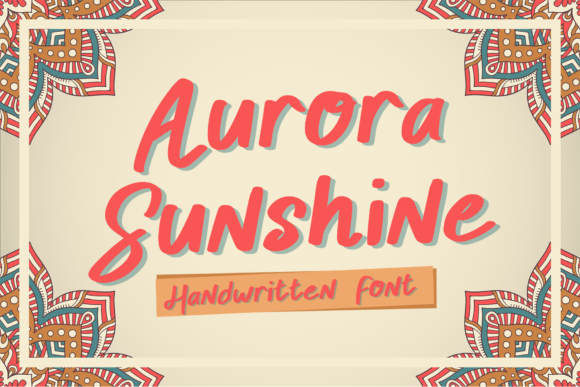
The Quest for the Perfect Font: Discovering Aurora Sunshine
I’ll never forget the time I was working on a project for a client who wanted a playful and modern vibe. I had spent hours browsing through font libraries, but nothing seemed quite right. That was until I stumbled upon Aurora Sunshine, a font that instantly caught my attention with its unique and carefree personality.
As a designer, I’ve learned that the right font can make or break a project. It’s not just about aesthetics; it’s about conveying the right tone and message to your audience. In this article, I’ll share my experience with Aurora Sunshine, a font that has quickly become one of my go-tos for projects that require a dash of playfulness and modernity.
A Personal Review of Aurora Sunshine
- ✨ Playful and relaxed vibe: Aurora Sunshine has a unique ability to convey a sense of fun and approachability, making it perfect for projects that require a lighthearted tone.
- ✅ Modern and fresh feel: The font’s clean lines and subtle curves give it a contemporary feel that’s hard to find in more traditional fonts.
- 💡 Highly versatile: Whether you’re working on a digital project or a print design, Aurora Sunshine adapts seamlessly to different mediums and contexts.
While Aurora Sunshine is an excellent font, it’s not without its quirks. For instance:
- 🤔 Limited use of uppercase letters: While the font’s uppercase letters are beautifully designed, they can be a bit limited in their use. However, this doesn’t detract from the font’s overall versatility.
- ⚠️ Occasional kerning issues: As with any font, there may be some kerning issues, especially when using certain character combinations. However, these can be easily adjusted in most design software.
The Backstory of Aurora Sunshine
Aurora Sunshine was designed by a team of typographers who wanted to create a font that captured the essence of a sunny day. Inspired by the beauty of nature, they crafted a font that’s both playful and modern, with a unique personality that’s hard to find in more traditional fonts.
| Font Name | Aurora Sunshine Font |
| Author | Phantom Creative Studio |
Q: What is Aurora Sunshine?
A: Aurora Sunshine is a playful, relaxed, and modern font designed for creative projects.
Q: What type of projects is Aurora Sunshine suitable for?
A: Aurora Sunshine is suitable for a wide range of projects, including digital designs, print materials, and branding.
Q: Is Aurora Sunshine easy to read?
A: Yes, Aurora Sunshine is designed to be highly legible, making it perfect for projects that require clear communication.